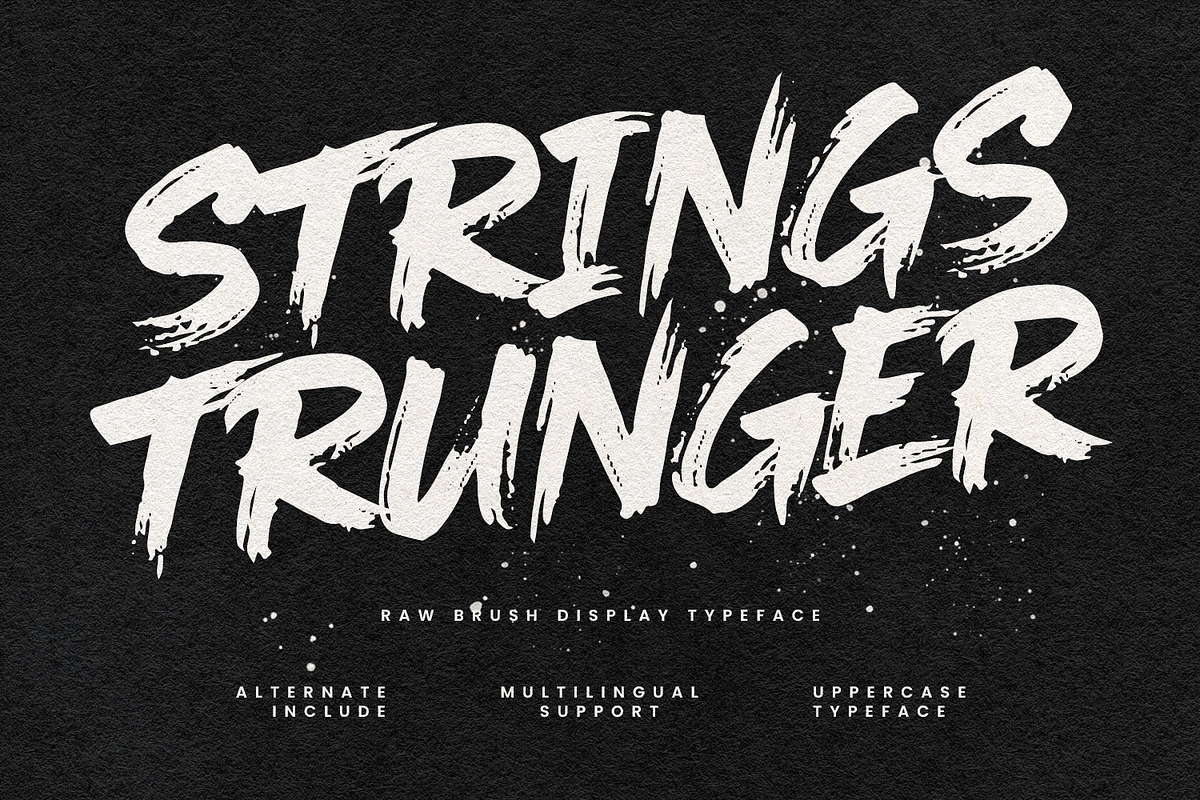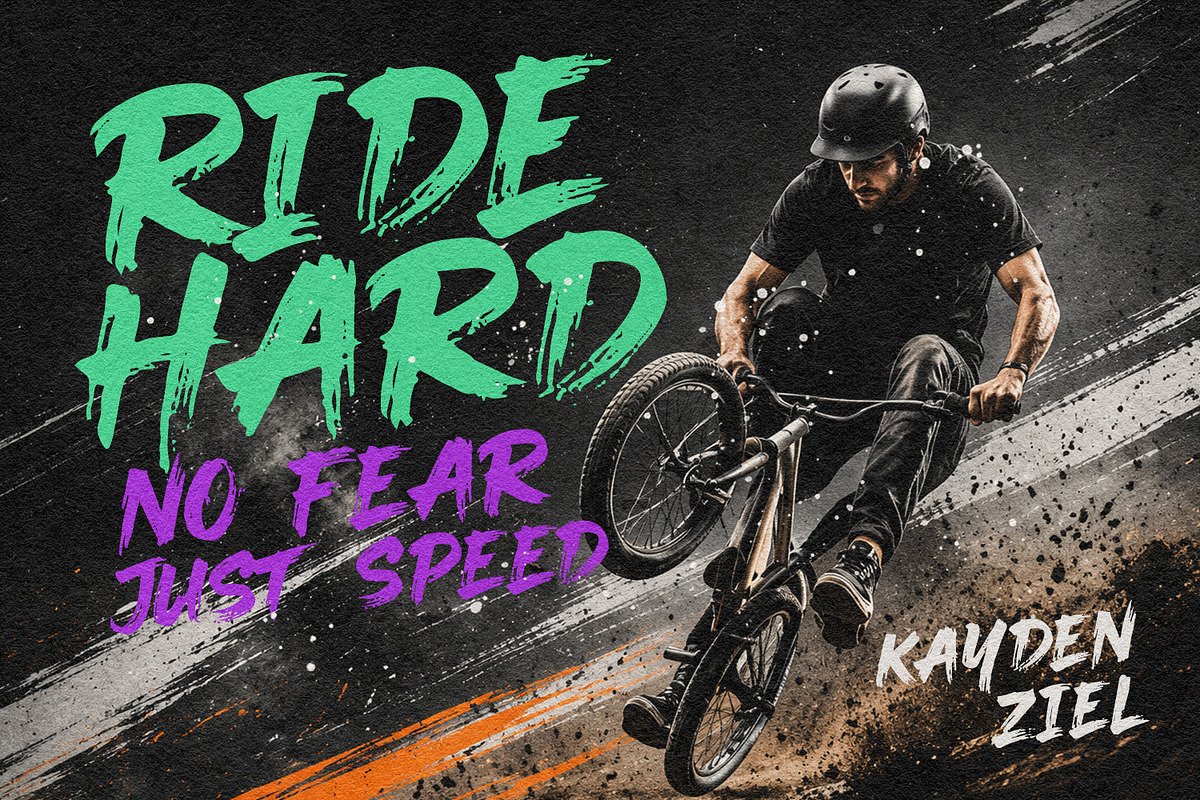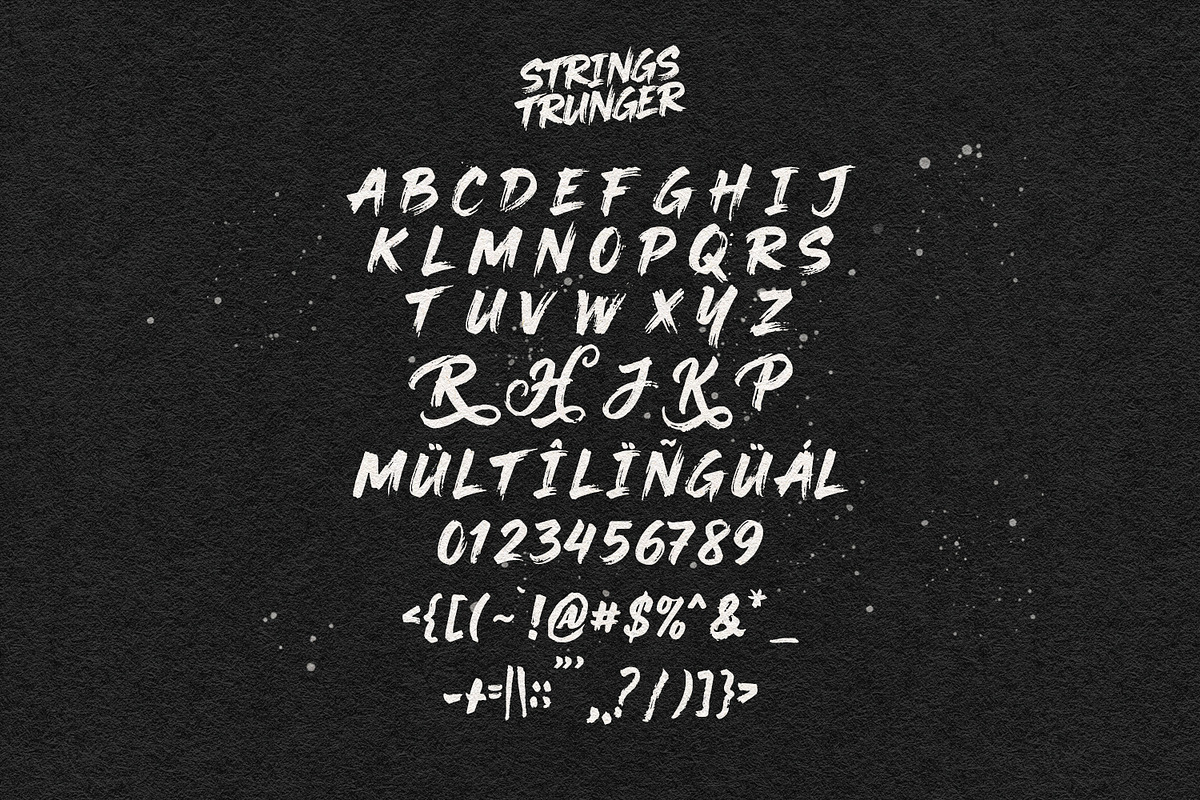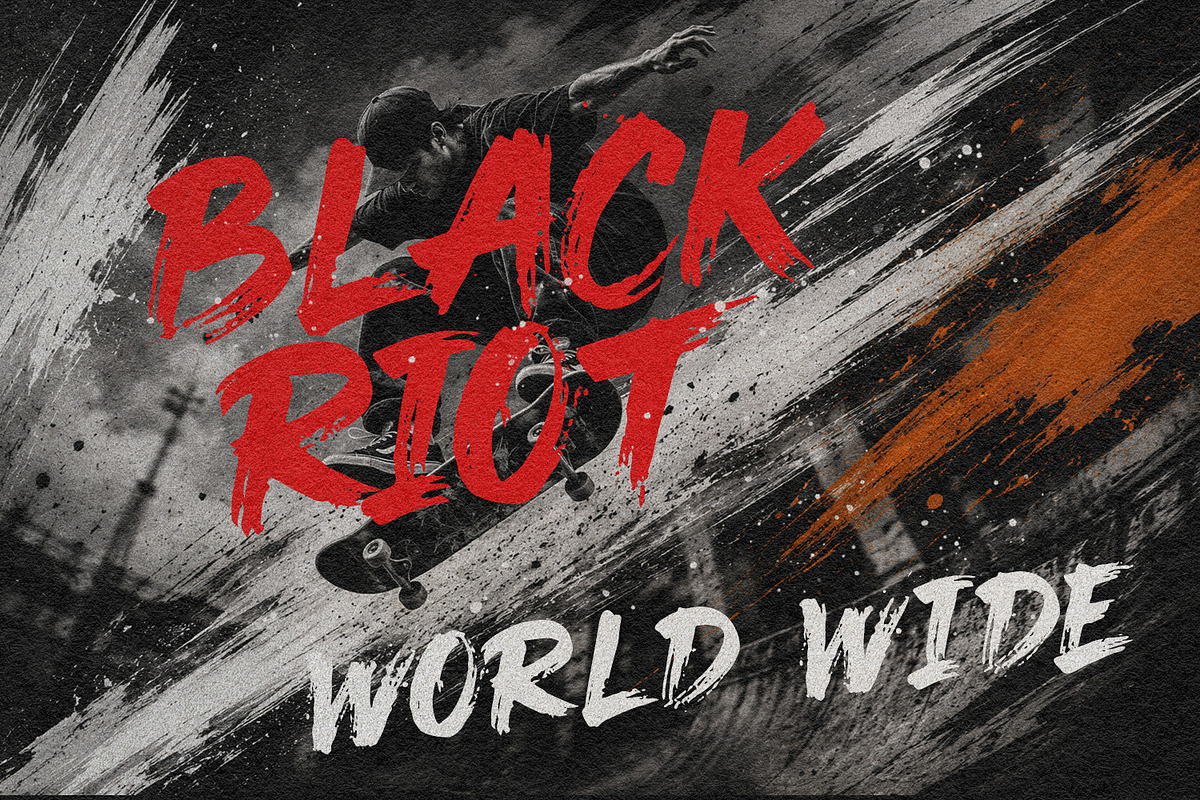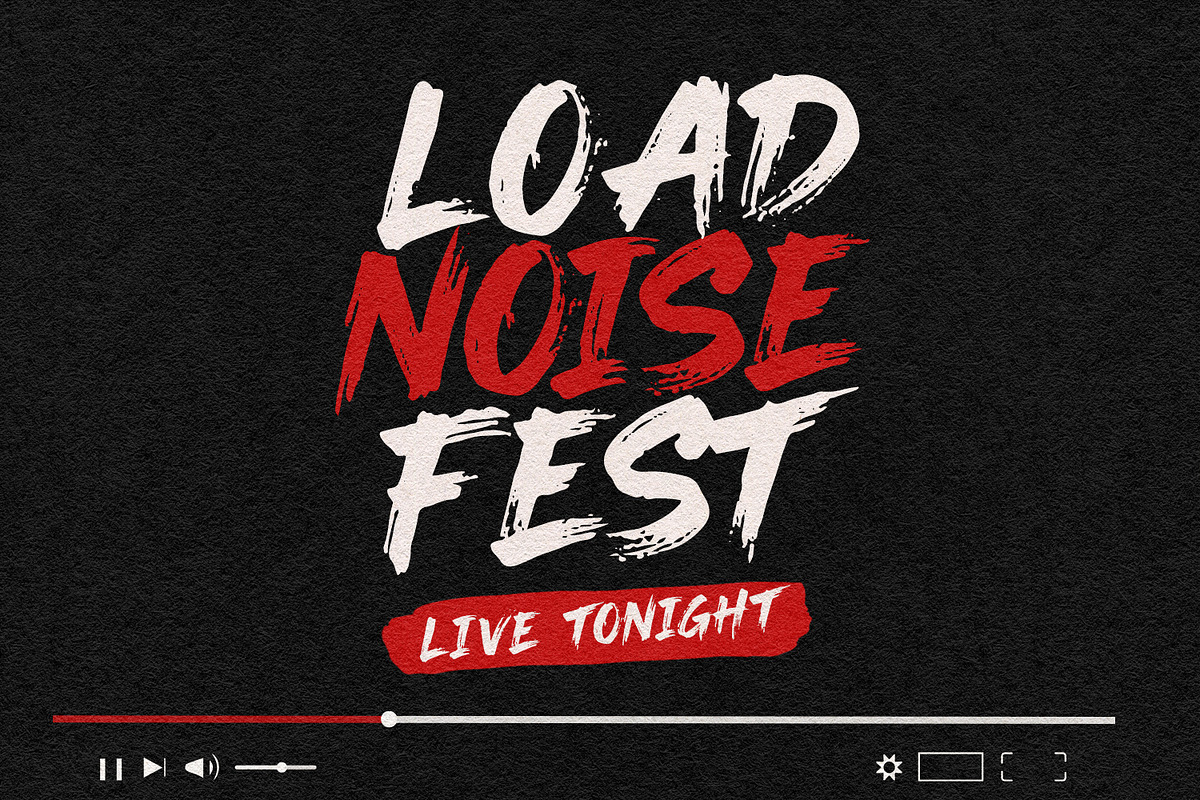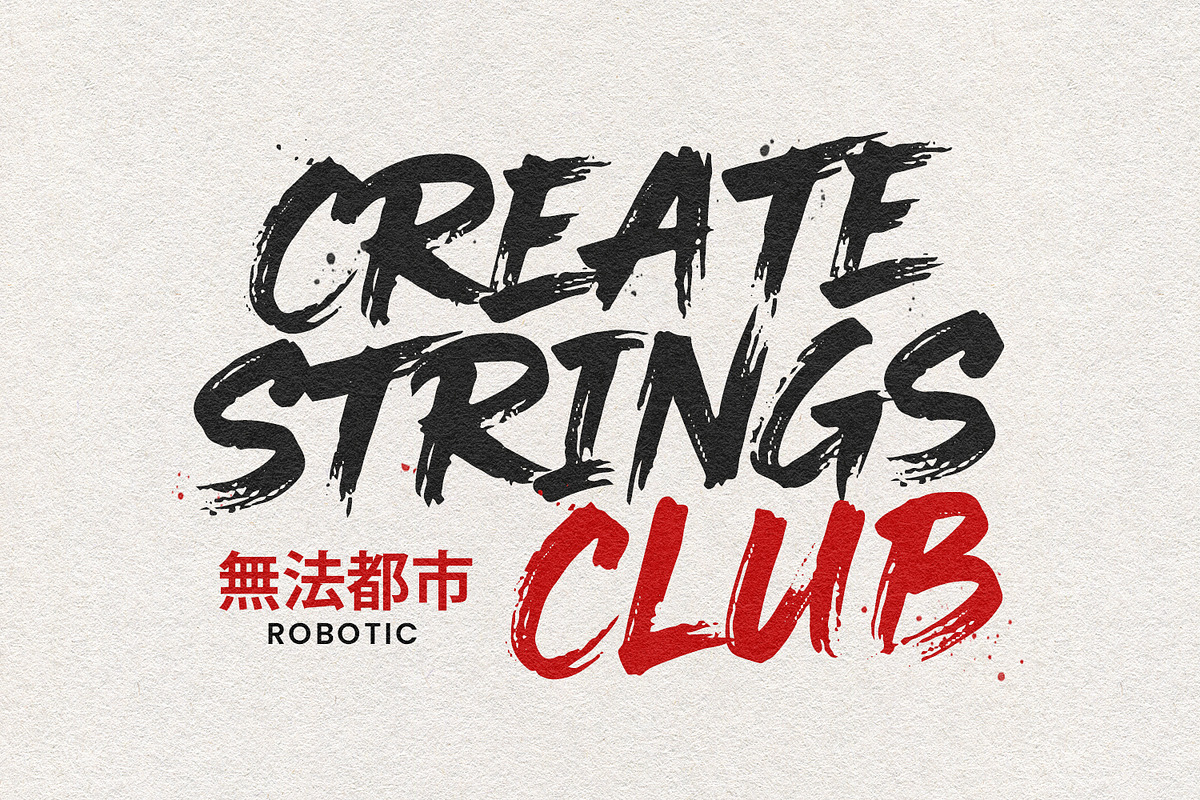
Strings Trunger Raw Brush Typeface
Strings Trunger is a high-energy display typeface crafted with intense dry-brush strokes and textured edges. Designed to express raw power, movement, and rebellious attitude, this font brings an authentic hand-drawn feel to any creative composition. The sharp letterforms and expressive splatters make it ideal for high-impact visual branding, event graphics, album art, movie posters, and extreme sports promotions.
Equipped with uppercase characters, stylistic alternates, and multilingual support, Strings Trunger offers maximum versatility for bold layout designs. Whether applied to action-packed advertising, festival covers, social media headers, or merchandise branding, this typeface adds an edgy, energetic aesthetic that immediately commands attention.
- Alternate for a natural handwriting flow